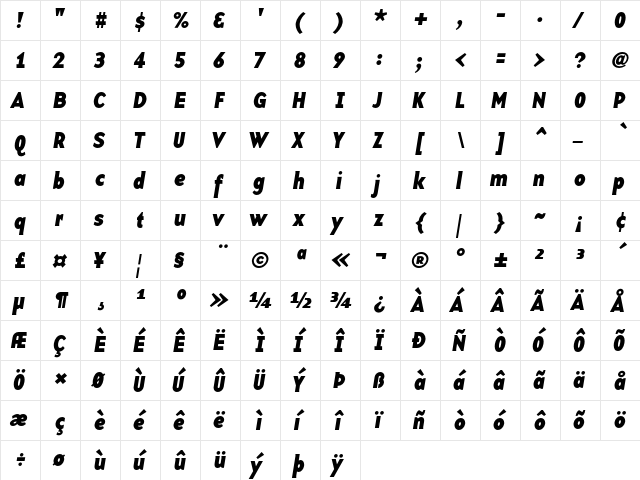
BaseTwelveSans Bold Italic Font Preview
BaseTwelveSans Bold Italic
BaseTwelveSans Bold Italic Font Details
Design Context for BaseTwelveSans Typeface
BaseTwelveSans is a composed and adaptable typeface that performs quietly and consistently across a wide range of design contexts. The dynamic lean of this cut emphasises speed and emphasis in any layout. Its bold stroke weight gives it real presence on the page.
Pro Tip: Use BaseTwelveSans for emphasis, pull quotes, and subheadings where its slanted energy can add rhythm to the layout.